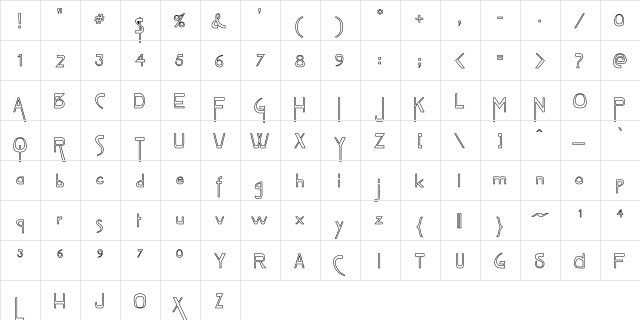
VireoFont Hollow Regular
Design Context for VireoFont Hollow Typeface
VireoFont Hollow takes a measured approach to typography — its balanced proportions and neutral character make it a reliable workhorse for both digital and print work.